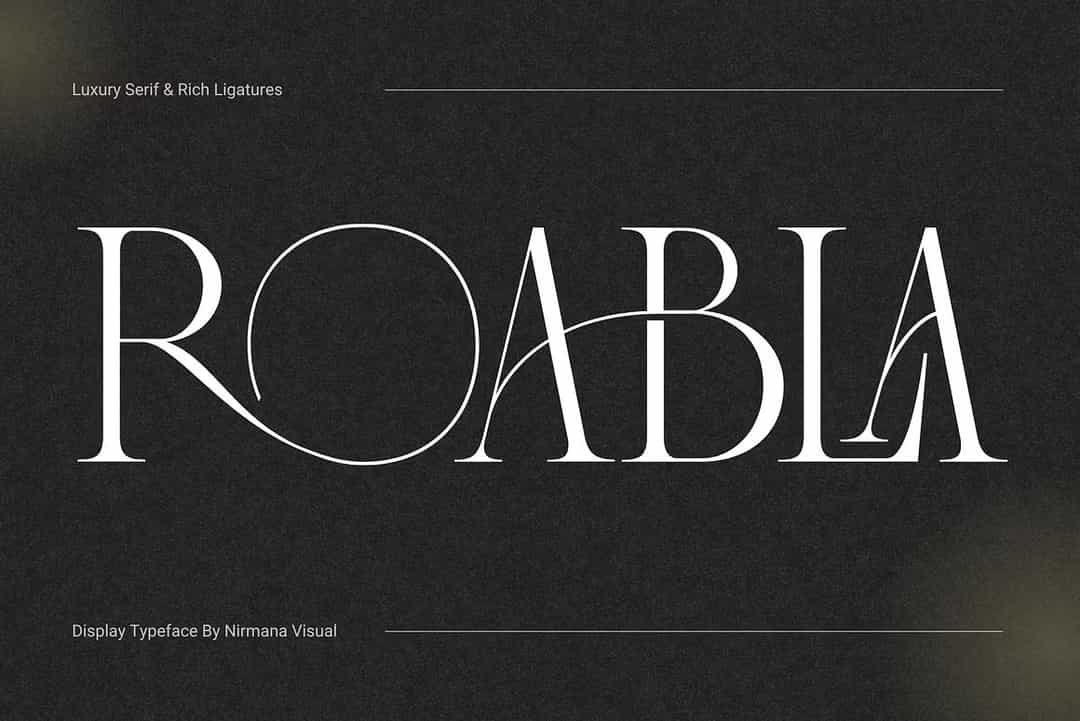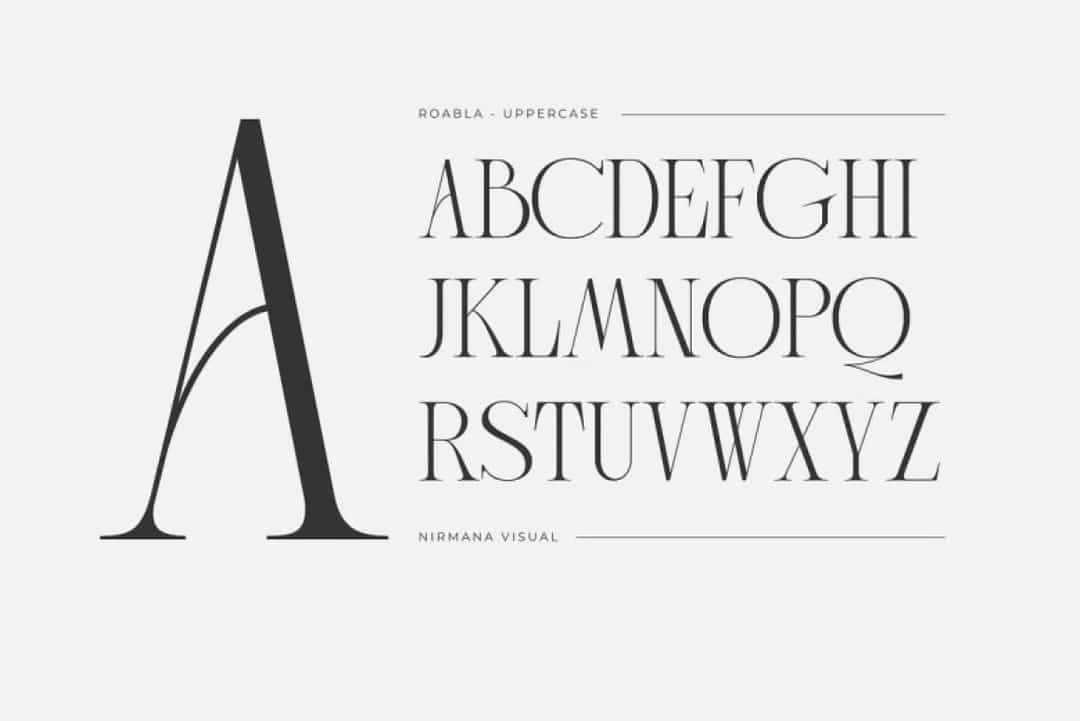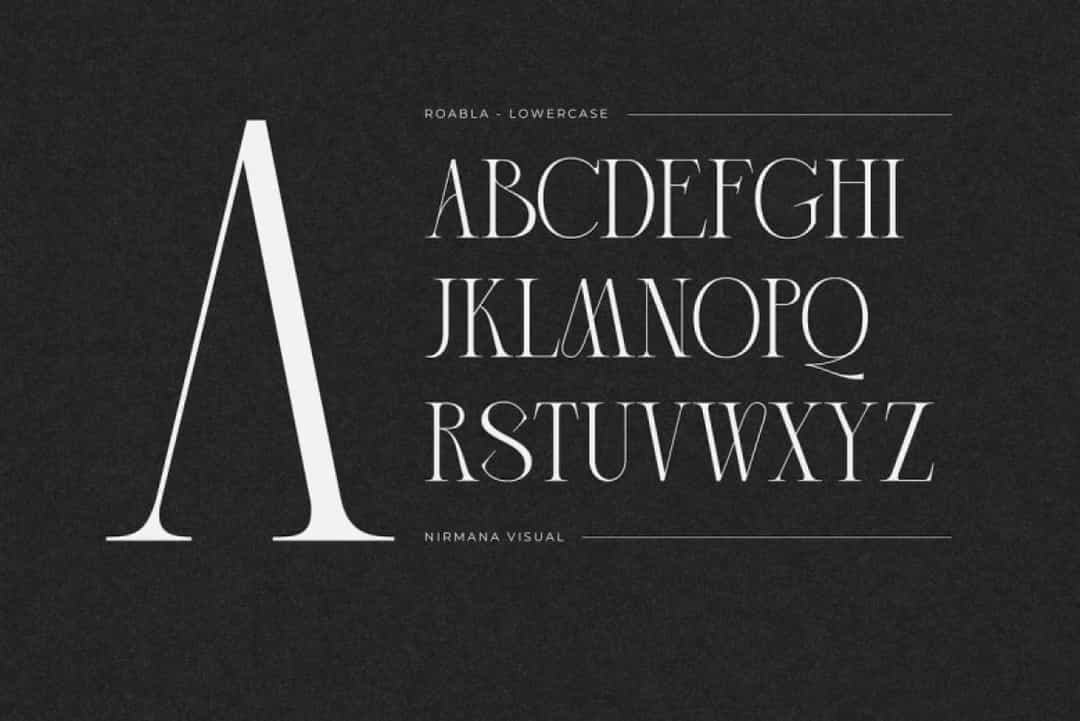
Roabla Font
Roabla is a clean and sophisticated serif font with traditional touch that gives it a charming look. It is created and posted by Nirmana Visual which is a graphic designing company. Roabla is versatile type solution for the different design fields such as logos & branding, social networks, advertisements & product designs.